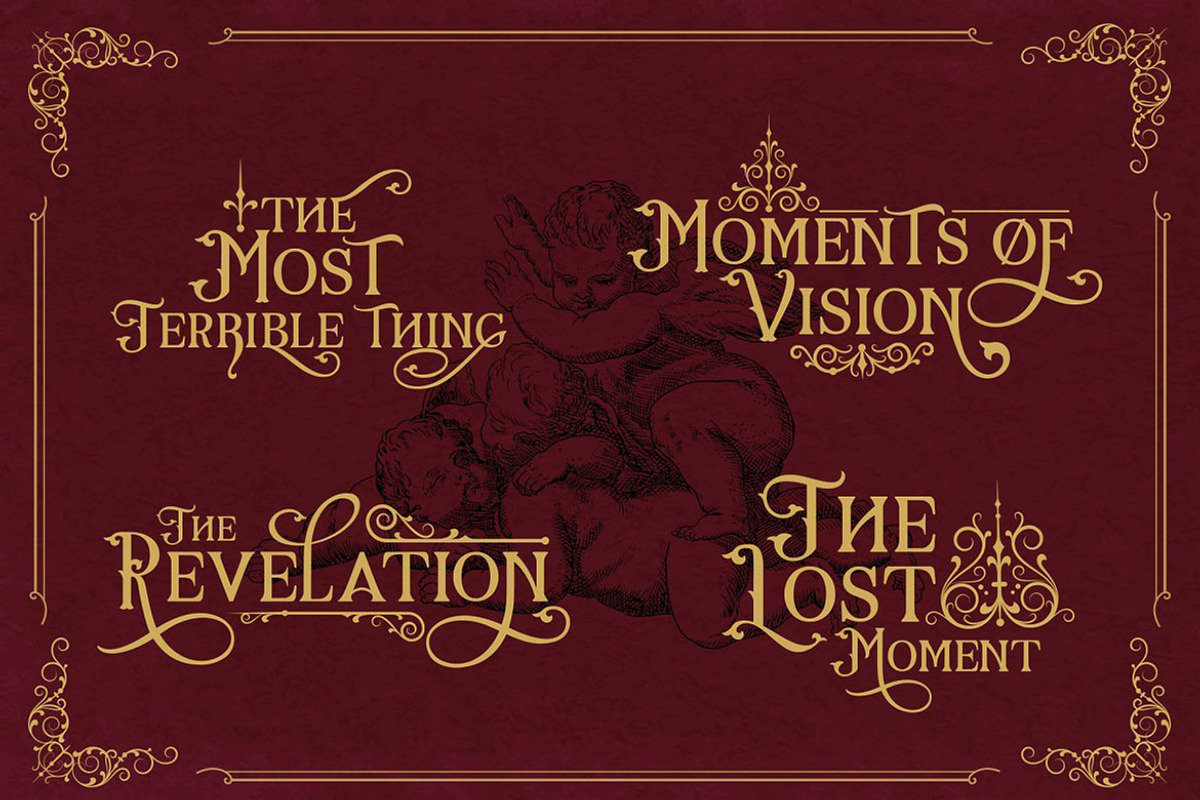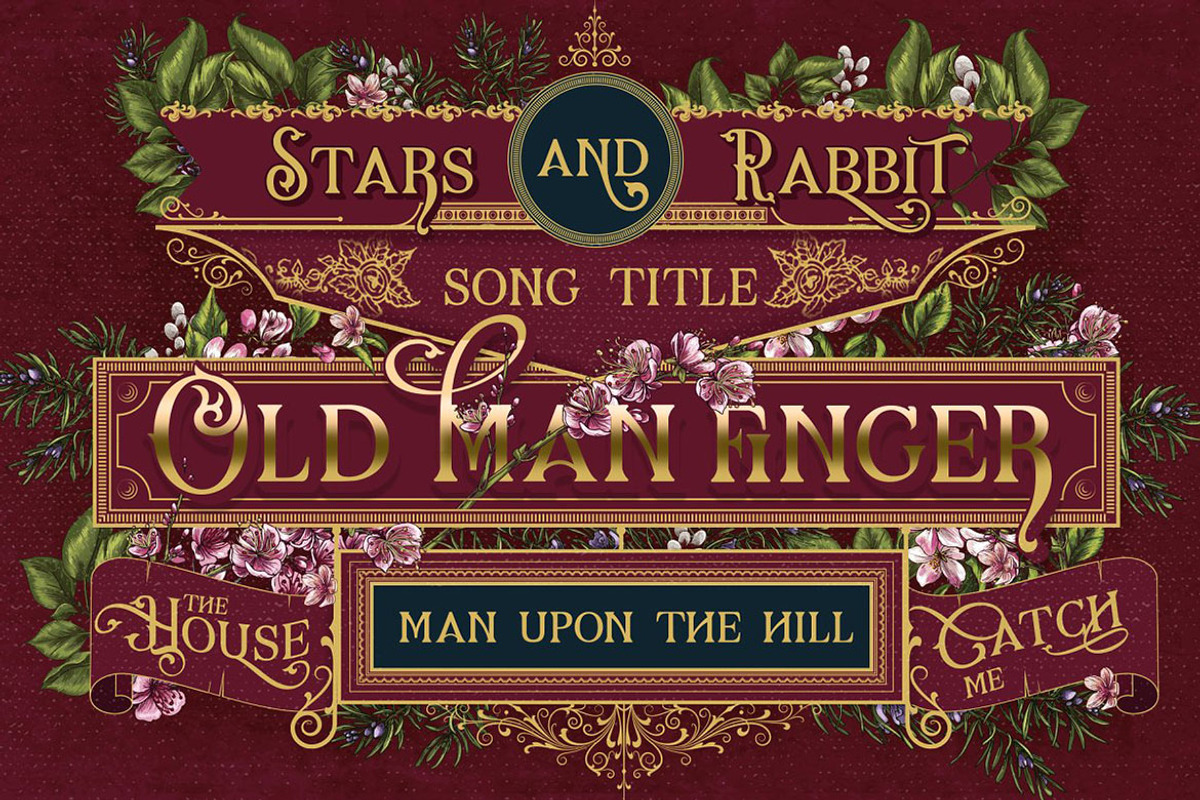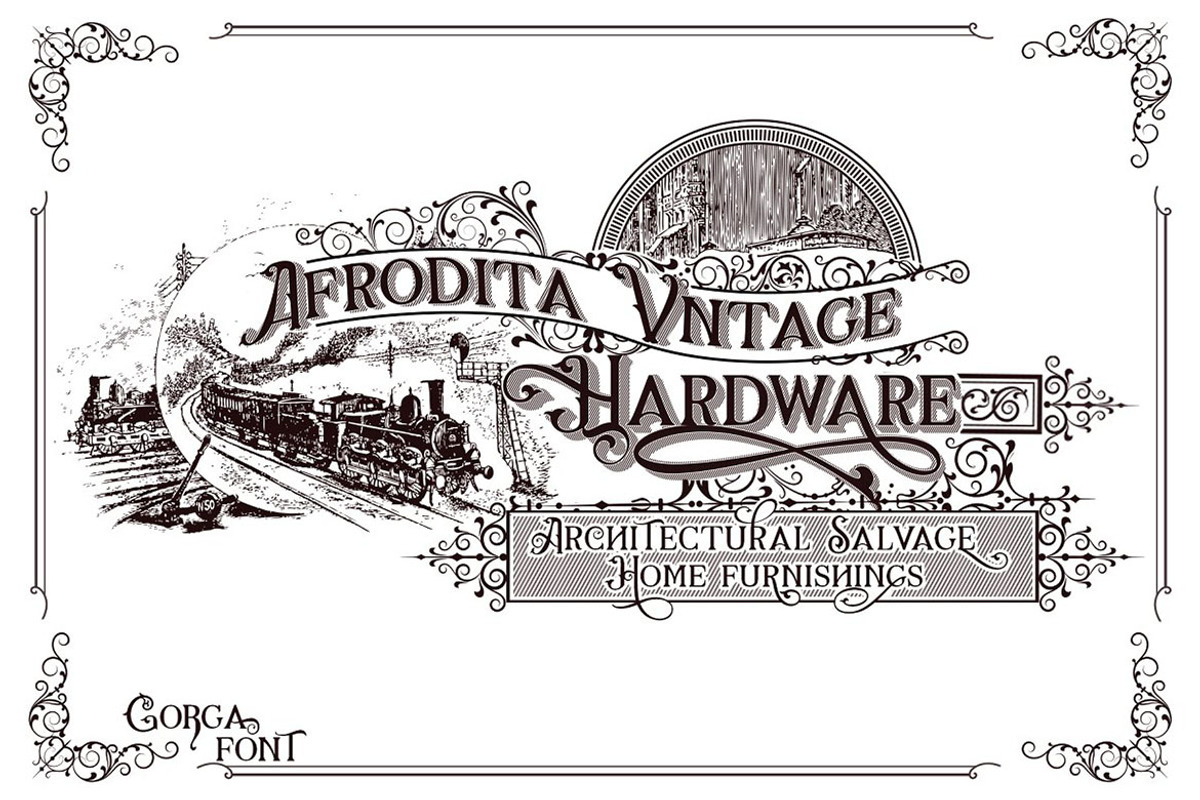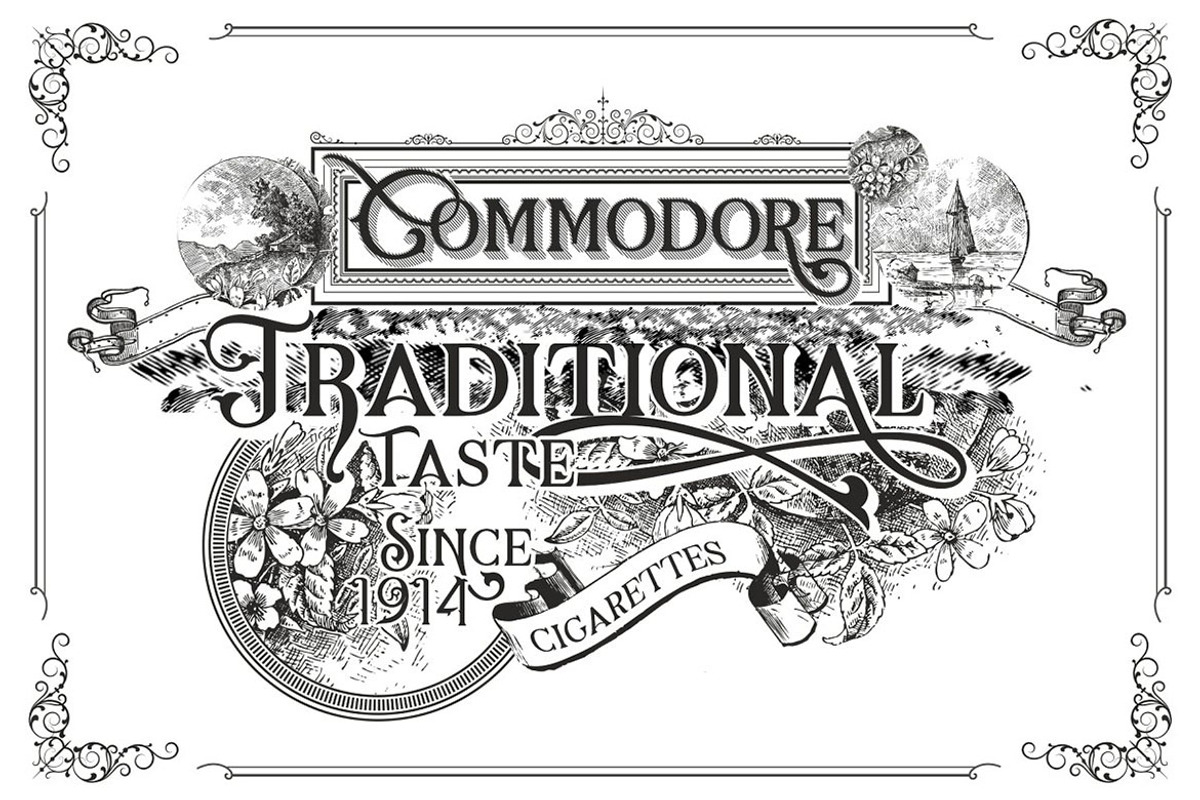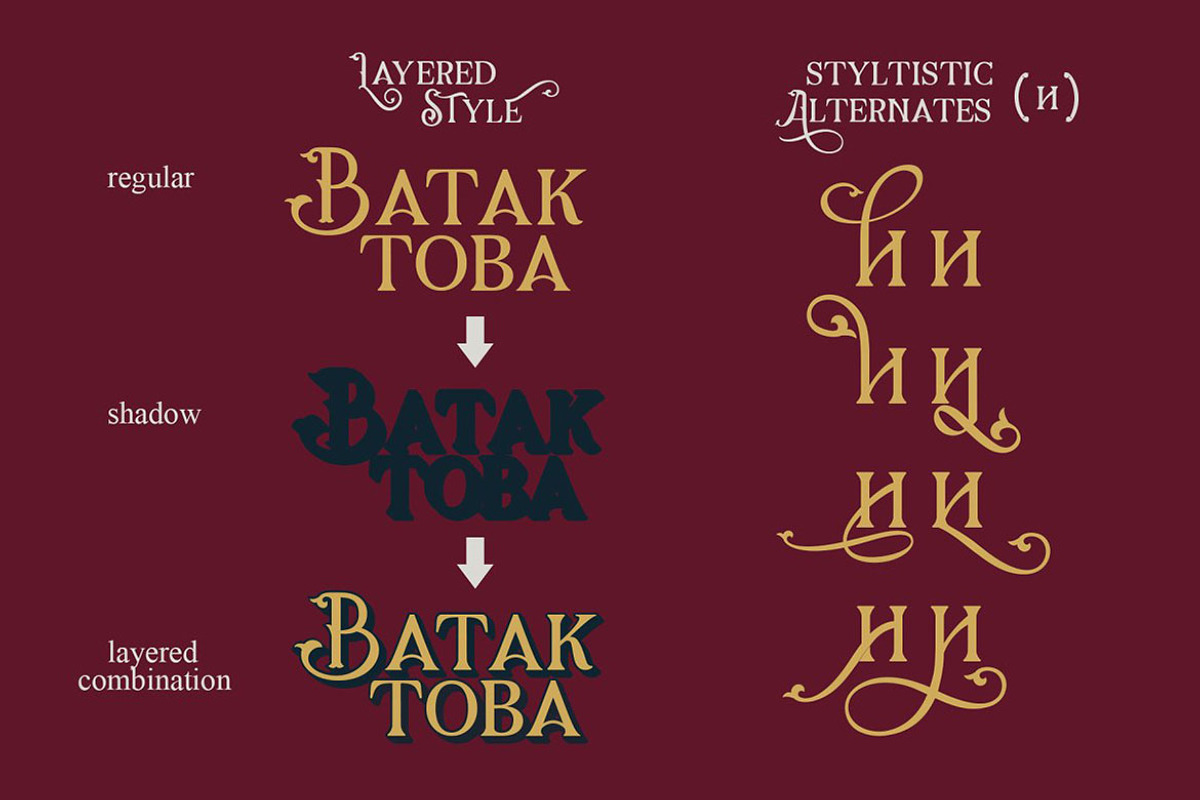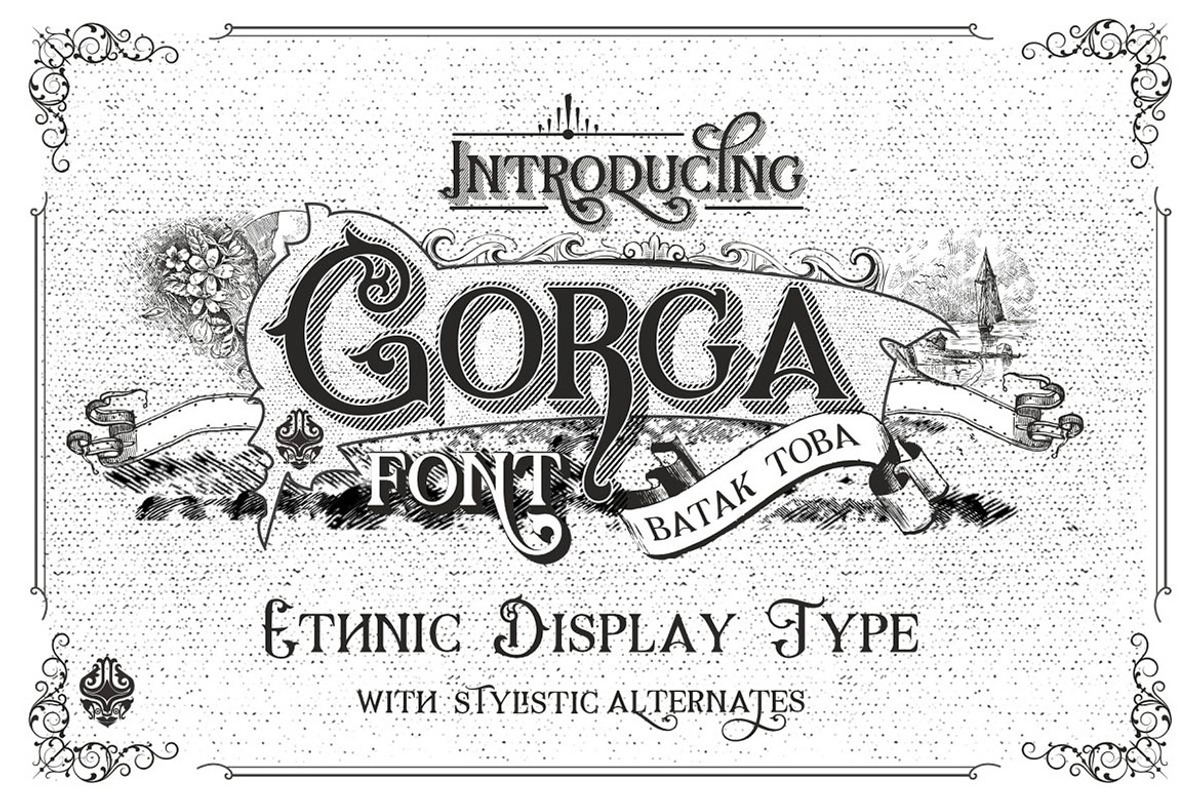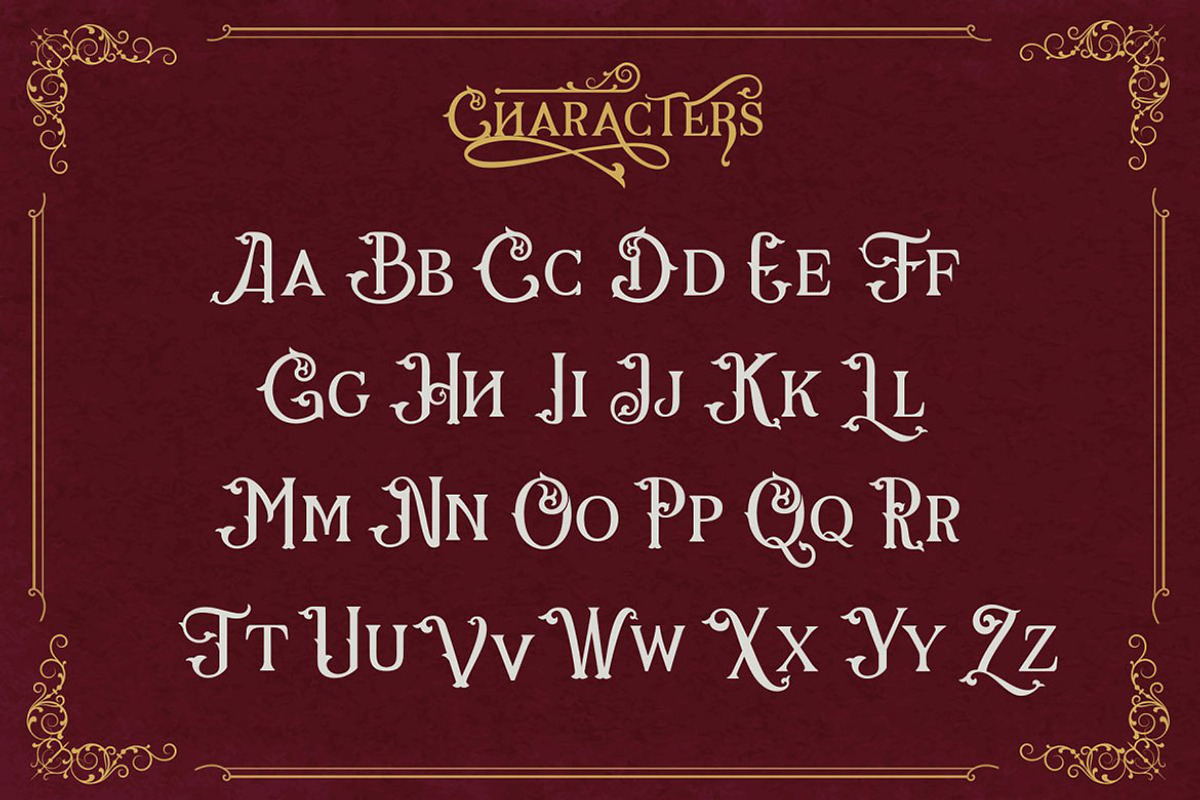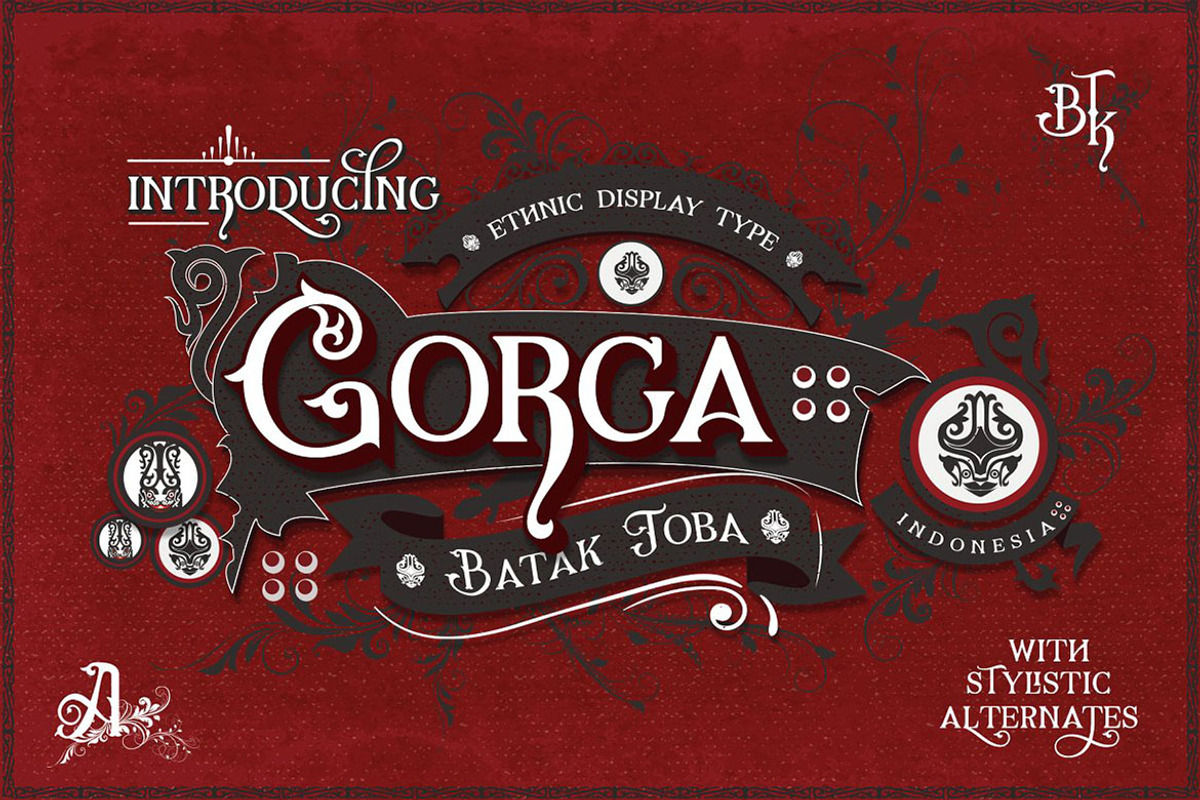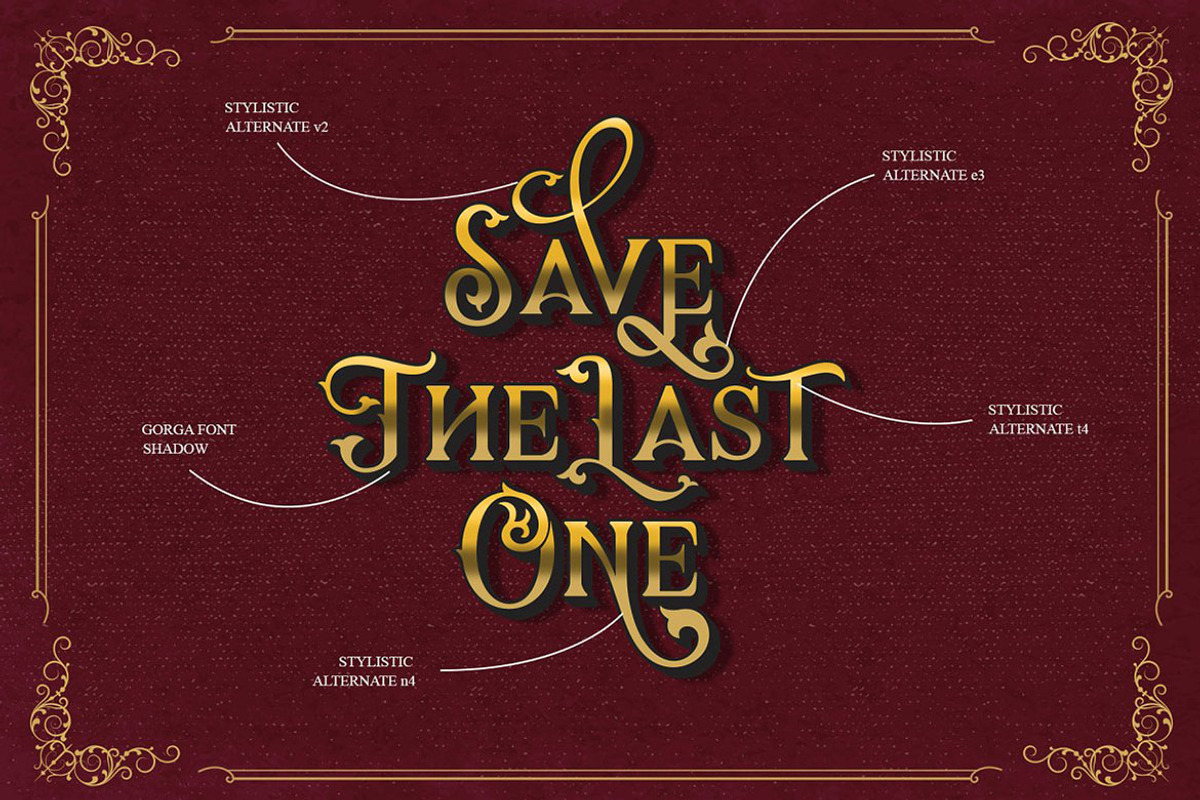
Gorga Ethnic Display Font
Creative font that is inspired by vintage ethnic decorative letters or cards. With ornamental vintage style and lot of swashes & alternates you can create realistic headers. It works beautifully for personal branding and advertising.